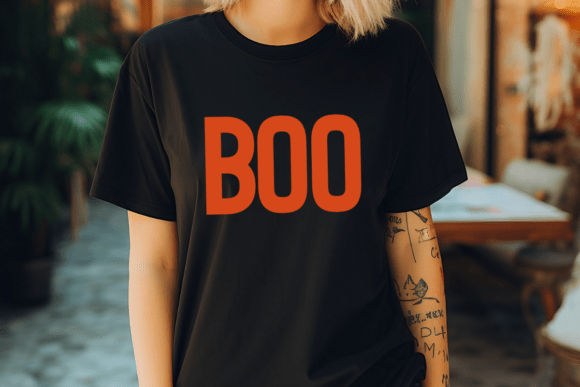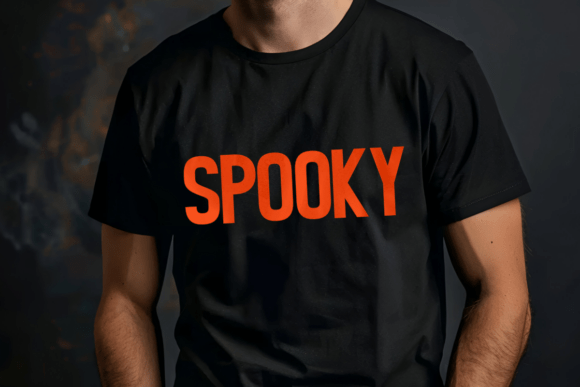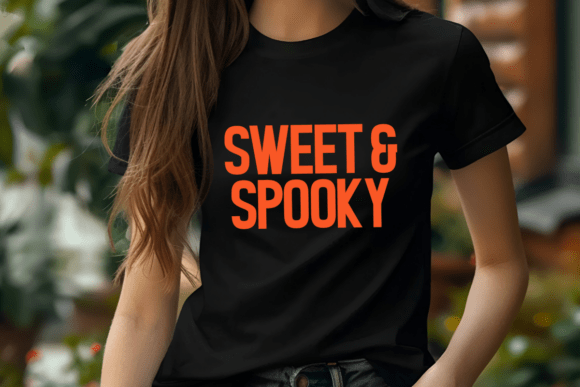
Introduction to Haunt People Font
Haunt People is a modern sans-serif font with a stunning, cool feel.
It’s perfect for logos, t-shirts, mugs, invitations, greeting cards, branding, posters, packaging, signs, cutting boards, printables, crafting, and other designs Whatever your creative needs are, Haunt People is the perfect choice for a modern yet simple design.
Key Features of Haunt People Font
Why Choose Haunt People Font?
Haunt People Font offers exceptional quality and versatility, making it a valuable addition to your design toolkit. Whether you’re creating for personal projects or commercial use, Haunt People Font delivers professional results.